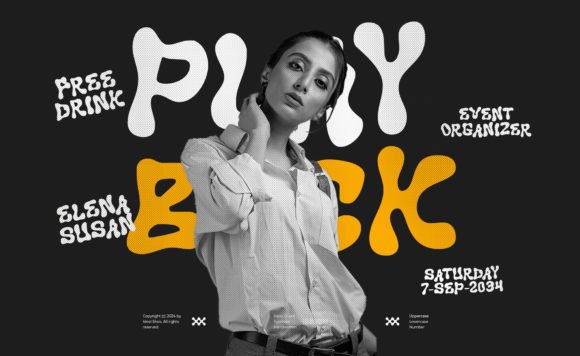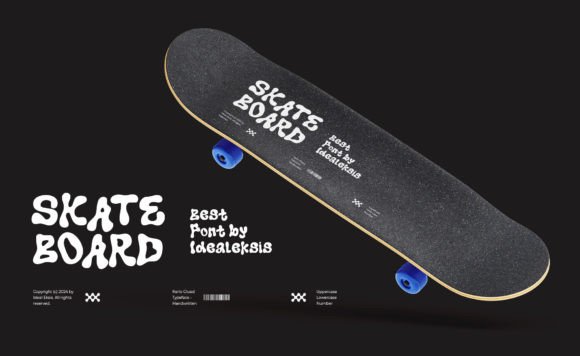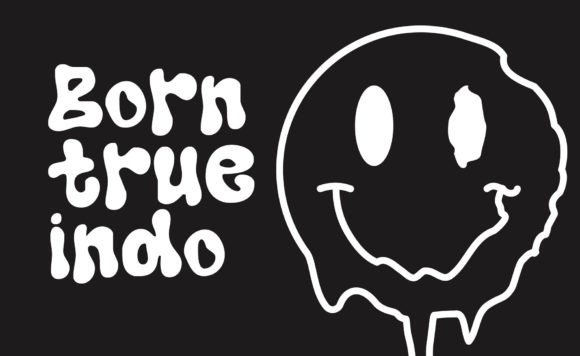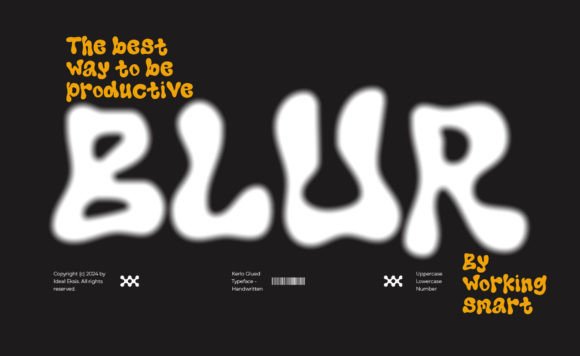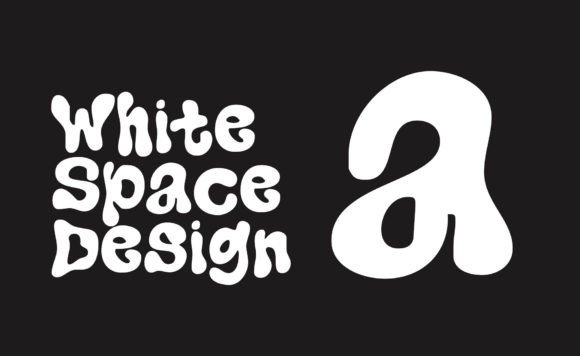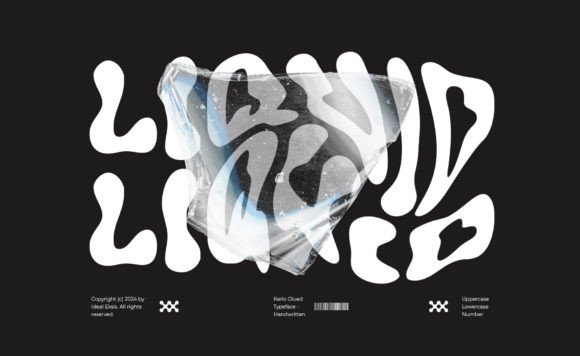
Introduction to Kerlo Glued Font
As a designer, there’s nothing quite like that ‘aha’ moment when a new font sparks creativity and takes your project to the next level. For many, it’s the difference between a good design and a great one. And that’s exactly what Kerlo Glued Font is designed to do – breathe life into your creative work with its unique blend of fluid and organic letterforms.
Imagine a font that not only adds a touch of sophistication but also a dash of edginess to your design. A font that’s as fitting for high-impact posters as it is for cutting-edge branding. That’s what you get with Kerlo Glued Font, a versatile and adaptable design resource that’s sure to elevate your creative project.
Key Features of Kerlo Glued Font
- High-quality design resource for creative projects, offering a unique and stylish look.
- Designed with a bold and playful style, making it perfect for use in branding, advertising, and other creative projects.
- Unique characteristic: The font features a distinctive “glued” effect, where letters appear to be stuck together, adding a creative touch to your designs.
Honest Review: Kerlo Glued Font
I recently stumbled upon the Kerlo Glued Font and I’m excited to share my thoughts on it. As a designer, I’m always on the lookout for high-quality design resources to elevate my creative projects. The Kerlo Glued Font is a fantastic find, offering a unique and stylish look that’s perfect for a wide range of applications.
What works well: ✨ The font is incredibly versatile and can be used in both digital and print media. The transparent background makes it easy to layer over other design elements, and the high-quality design ensures that the font looks great at any size. The font also includes a range of characters and symbols, making it a great resource for creatives working on international projects.
What doesn’t: ⚠️ While the Kerlo Glued Font is a great find, it’s not suitable for all projects. The font is a bit on the ornate side, so it may not be the best choice for projects that require a clean and minimalist look. Additionally, the font is a free download, which means it may not be as comprehensive as some paid font options.
Overall, I’m really impressed with the Kerlo Glued Font and would highly recommend it to designers looking for a high-quality, unique font. It’s a great addition to any design resource library, and I’ve already started using it in my own creative projects.
- Wide range of characters and symbols
- Perfect for digital and print media
The Kerlo Glued Font is a high-quality design resource that offers a unique and creative touch to your projects. With a transparent background, this font is perfect for designers who want to add a personal touch to their work.
The Kerlo Glued Font is perfect for:
1. Creative projects that require a unique and creative touch.
2. Designers who want to add a personal touch to their work.
3. Projects that require a high-quality design resource.